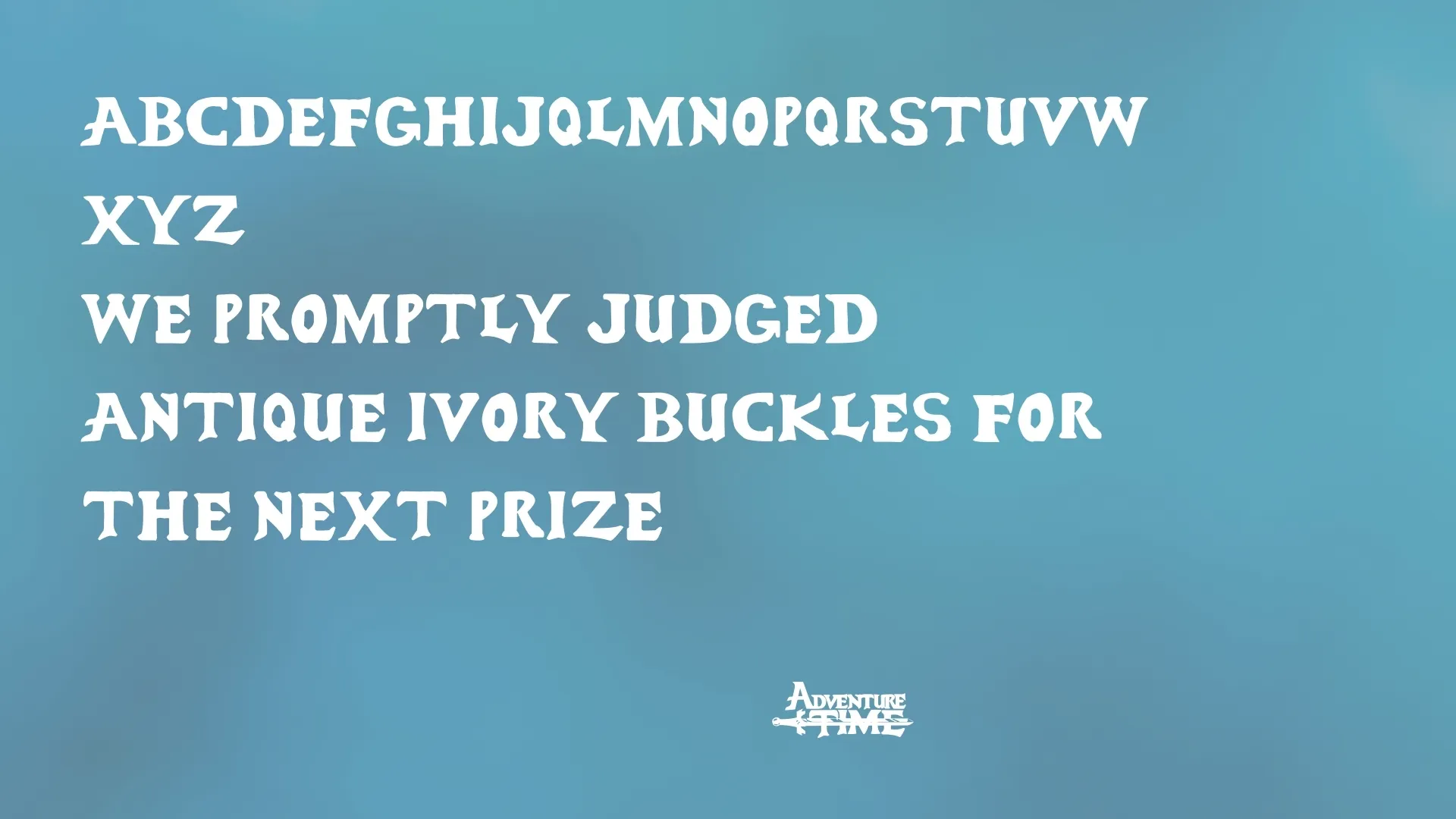
Today we are introducing a typeface that has a bold and unique character style named Adventure Time Logo Font. This typeface is encouraged by the font style that was used in the logo of the American Kids series that is also available on Netflix named AdventureTime.
This series has been comprised 10 seasons already. It has become popular all over the globe. So, the font that was used in the logo of this series also comes into the spotlight and gets demand from designers from all over the globe. The original font that was used in that logo was Thunderman Font.
Both fonts have the almost same characters’ personalities. This font style is also well-known for its copy and pastes abilities. There are also some fonts that have the same personality as this font style.
But in our opinion, the Pirates of the Caribbean font is most similar to this typeface. So, you can use this typeface instead of using the Pirates of the honda logo font. This font style also has a painting nature. So, you can combine other fonts with this typeface and create amazing designs and projects.
Sriracha Font makes a great combination with this typeface. You can also use this typeface in creating stunning logos, posters, game texture content, invitation cards, wallpaper layout texts, etc.
Designer of Adventure Time Logo Font
Thunderman Bolt font has been created by the Tmanfan. It has also created many fonts for cartoon industries that are famous all over the globe. While creating this font he focused on creativity and readability of this font.
This typeface texture is created up in a particular style. Each style in this family features capital letters, small letters, glyphs, punctuation, numerals, symbols, and special characters, as well as language support.
What Font Does Adventure Time Logo Use?
The original typeface that was used in this series was Thunderman Font designed by Tmanfan.
What Are the Similar Fonts to The Adventure Time Logo Font?
There are also some fonts that have the same personality as this font style. But in our opinion, the Pirates of the Caribbean font is most similar to this typeface.
Where Can You Use the Adventure Time Logo Font?
This typeface has been designed on the basis of logo fonts. So, it can be best to utilize on the display projects like logos, posters, banners, headings, and broachers.